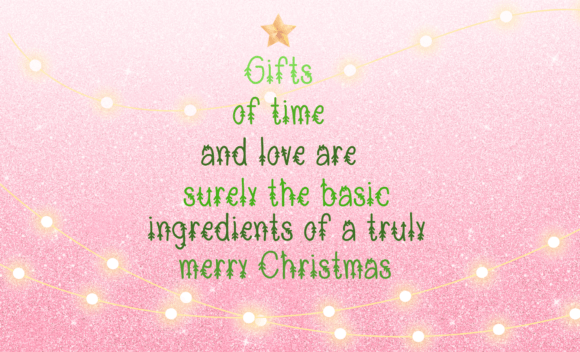
Introduction to Snow Peas Font Font
Fonts play a crucial role in design, and the Snow Peas Font font is a typeface that brings both character and versatility to any project. Whether you’re working on a branding project, a website, or a print design, the Snow Peas Font font offers a unique style that can elevate your work.
Snow Peas is a handwritten font that is cute, playful, neat, and clean.
It is good for digital prints, phrases for Facebook and Instagram, planners, journals, and any occasion presentation .
The Snow Peas Font font is more than just a typeface – it’s a design tool that helps you communicate your message with style and clarity. Its unique character set and versatile design make it suitable for a wide range of applications, from elegant invitations to bold headlines.
With its carefully crafted letterforms and balanced proportions, the Snow Peas Font font ensures readability and visual appeal across all mediums.
The Snow Peas Font font stands out with its unique design, exceptional readability, and versatility across various design applications.